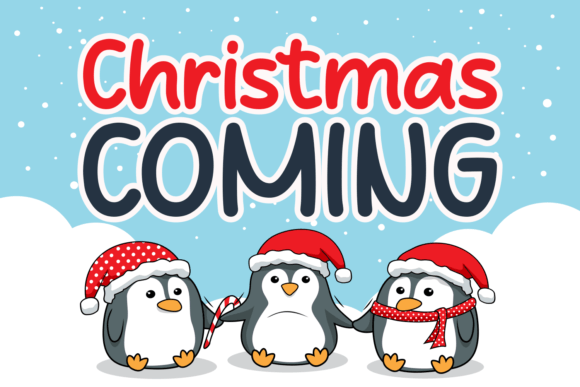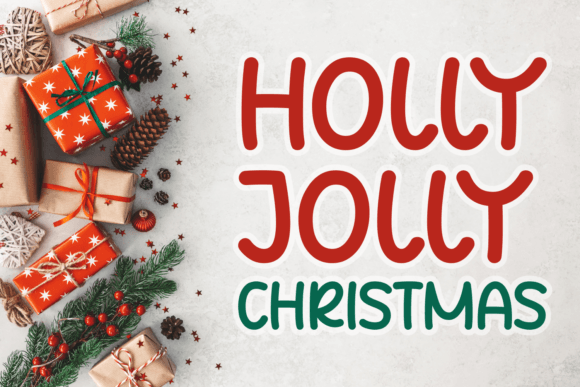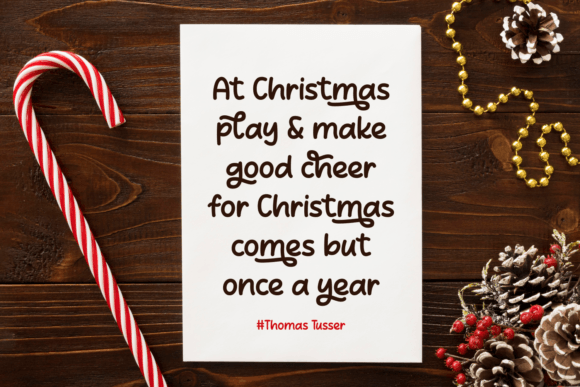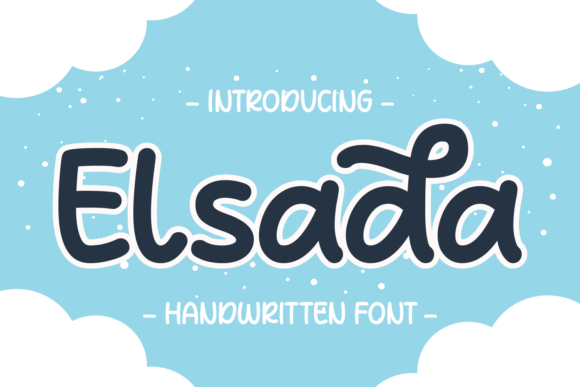
Introducing Elsada Font: The Playful Handwritten Font that Radiates Joy and Spontaneity
In the world of typography, fonts play a crucial role in conveying the tone and personality of a message. For designers and crafters, finding the perfect font can make all the difference in bringing a project to life. If you’re looking for a font that exudes joy, spontaneity, and playfulness, look no further than Elsada Font. This delightful handwritten font is designed to add a touch of fun and personality to any project, making it perfect for greeting cards, invitations, and more.
The Characteristics of Elsada Font
Elsada Font is a true showstopper, with its whimsical strokes and cheerful curves that dance across the page. This playful handwritten font is characterized by its:
- Whimsical strokes: Elsada’s strokes are playful and unpredictable, giving the font a sense of spontaneity and joy.
- Cheerful curves: The font’s curves are smooth and rounded, adding to its lighthearted and friendly vibe.
- Handcrafted feel: Elsada’s handcrafted design gives it a unique, human touch that’s perfect for projects that require a personal touch.
Elsada Font is versatile and can be used for a wide range of projects, including:
- Greeting cards: Add a touch of personality to your greeting cards with Elsada’s playful and cheerful design.
- Invitations: Make your invitations stand out with Elsada’s whimsical strokes and cheerful curves.
- Social media graphics: Elsada’s friendly vibe makes it perfect for social media graphics, such as Facebook posts, Instagram stories, and more.
- Branding and packaging: Use Elsada to add a touch of personality to your brand’s packaging and marketing materials.
Why Choose Elsada Font?
With so many fonts to choose from, why should you choose Elsada? Here are just a few reasons:
- Unique and eye-catching: Elsada’s playful design makes it stand out from more traditional fonts.
- Easy to read: Despite its playful nature, Elsada is easy to read and understand, making it perfect for body text.
- Customizable: Elsada can be customized to fit your project’s needs, making it a versatile font for a wide range of applications.
Embracing the Joy of Handcrafted Design
In a world of digital design, Elsada Font is a breath of fresh air. Its handcrafted design gives it a unique, human touch that’s perfect for projects that require a personal touch. With Elsada, every word feels like a celebration, making it the perfect font for:
- Wedding invitations: Make your wedding invitations truly special with Elsada’s playful and romantic design.
- Birthday cards: Add a touch of joy and celebration to your birthday cards with Elsada’s cheerful curves.
- Party invitations: Elsada’s whimsical strokes make it perfect for party invitations, such as baby showers, graduations, and more.
| Font Name | Elsada Font |
| Author | Ade (7NTypes) |
Elsada Font is a playful handwritten font that radiates joy and spontaneity. With its whimsical strokes and cheerful curves, Elsada brings a lighthearted charm to any project. Whether you’re a designer or crafter, Elsada is the perfect font for adding a touch of fun and personality to your work. So why not give Elsada a try and see how it can bring joy and celebration to your next project?
- Elsada Font is a playful handwritten font that radiates joy and spontaneity.
- It’s perfect for greeting cards, invitations, social media graphics, and more.
- Elsada’s handcrafted design gives it a unique, human touch.
- The font is easy to read and customizable.